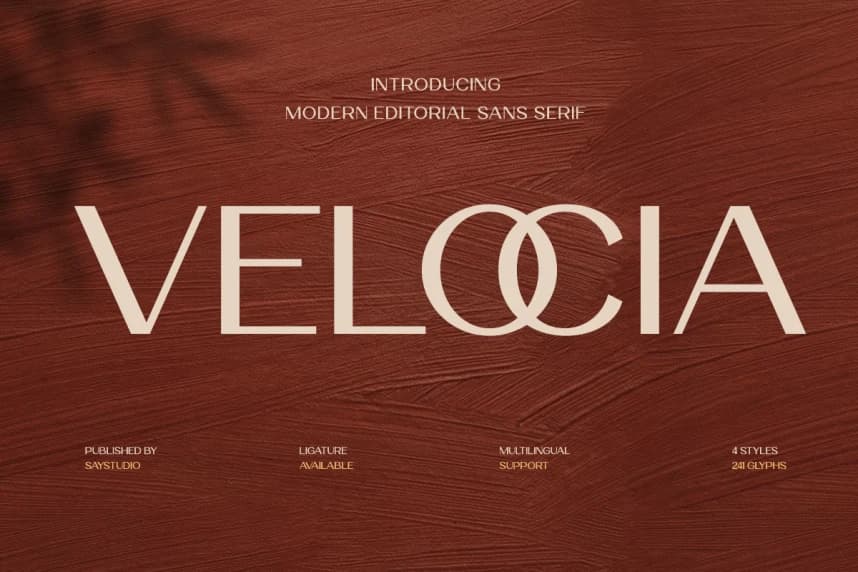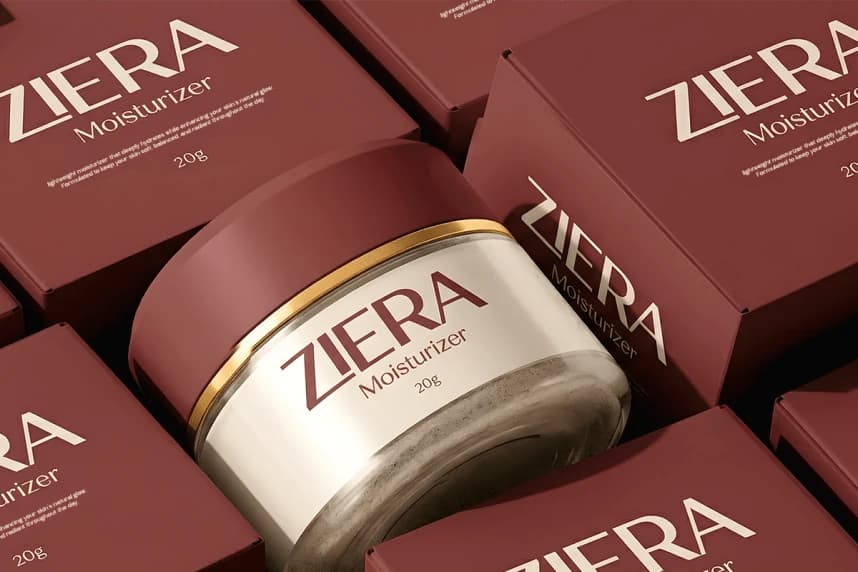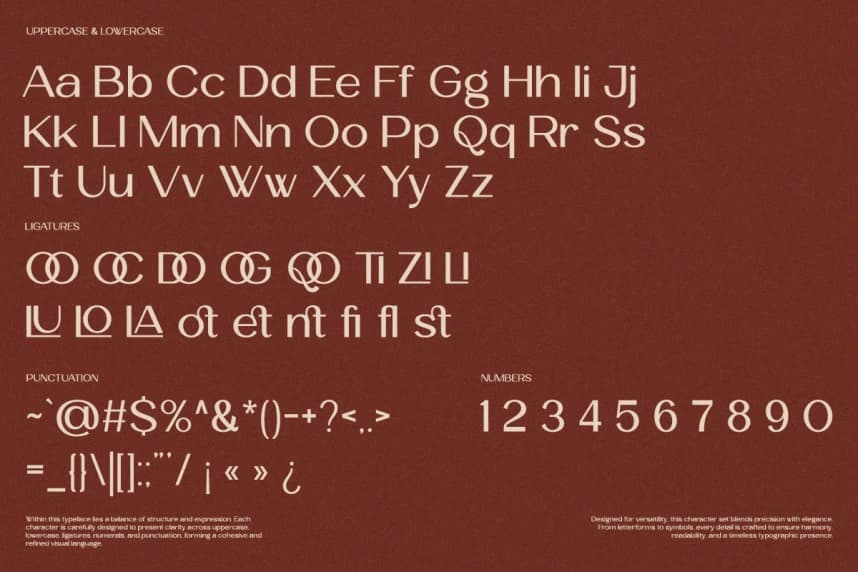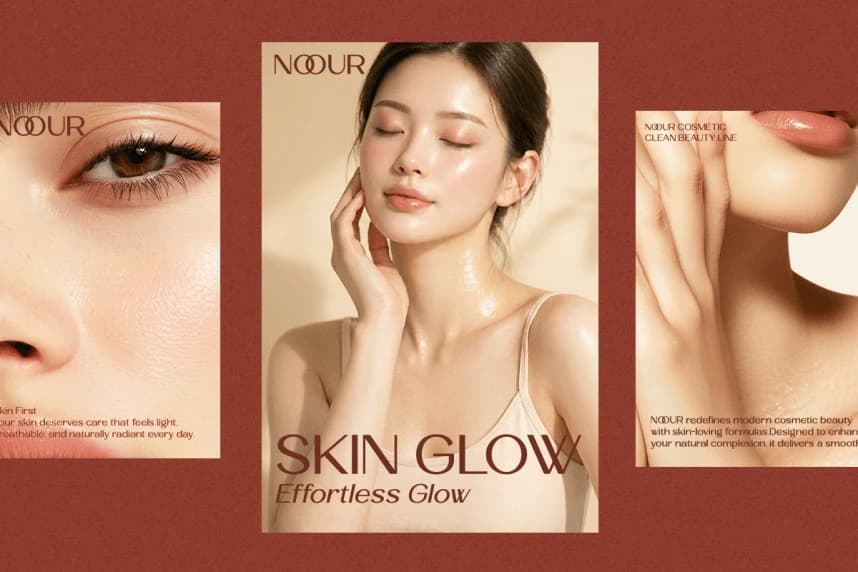
Velocia Font is a modern editorial sans serif that captures elegance through simplicity and refined geometry. Designed with clean lines and subtle character details, this typeface brings a contemporary yet timeless feel